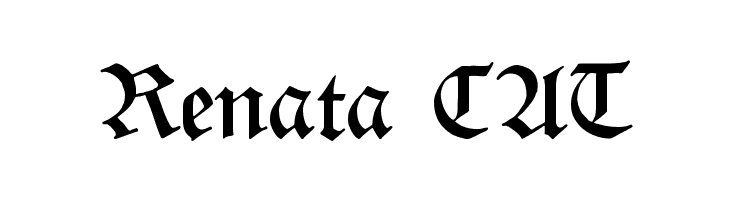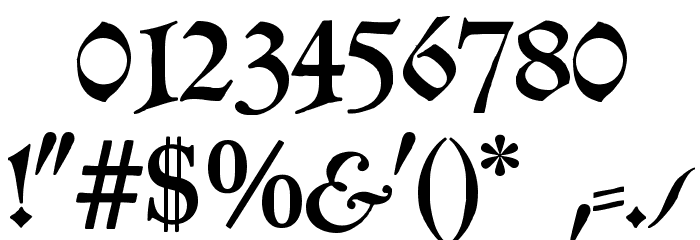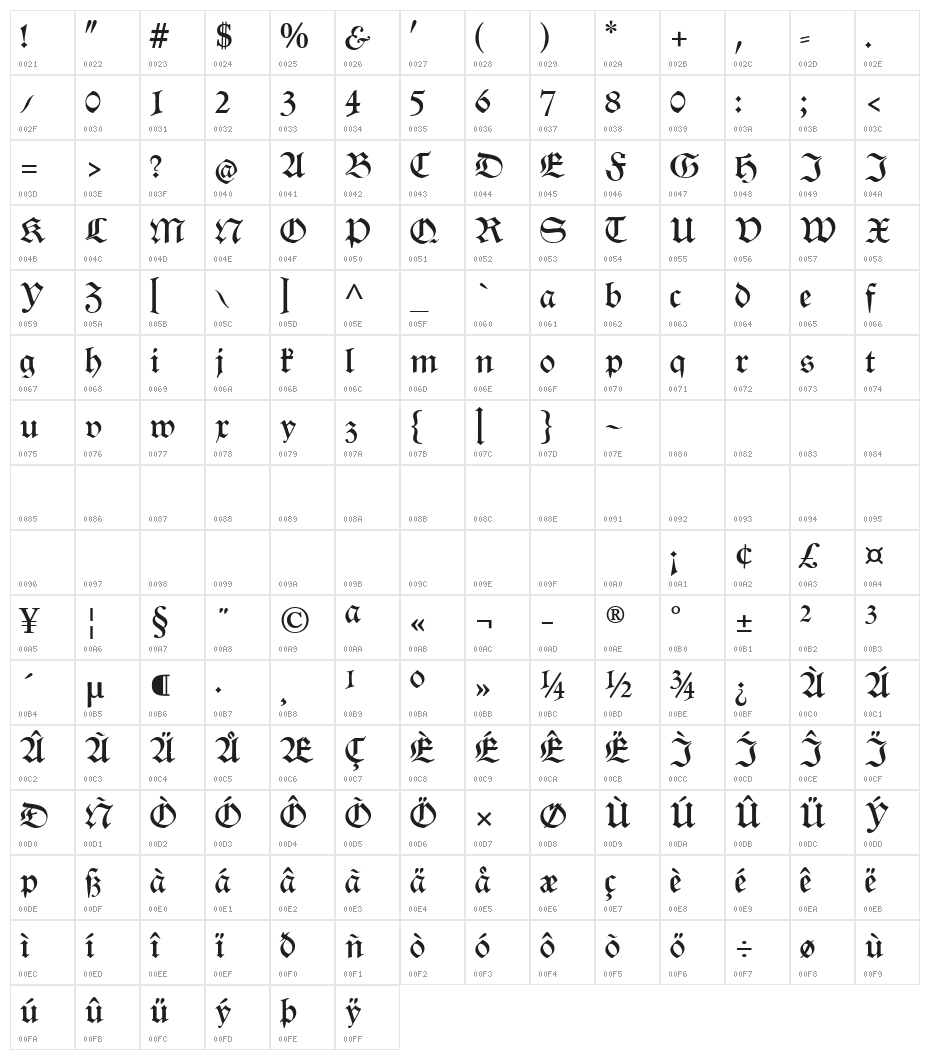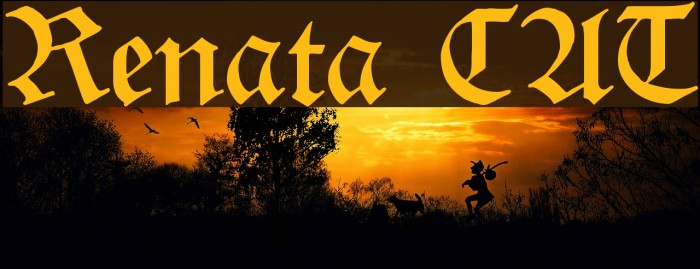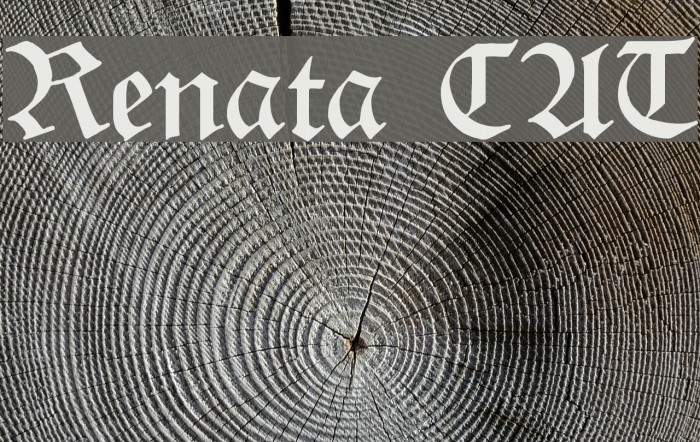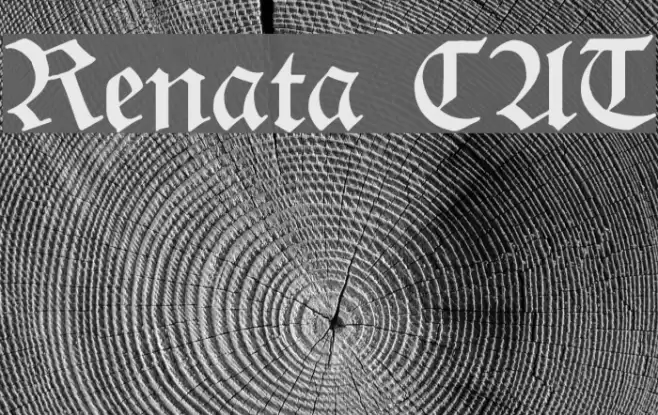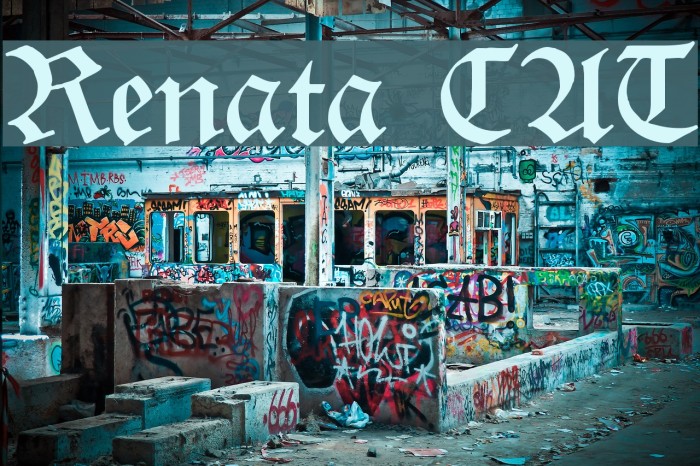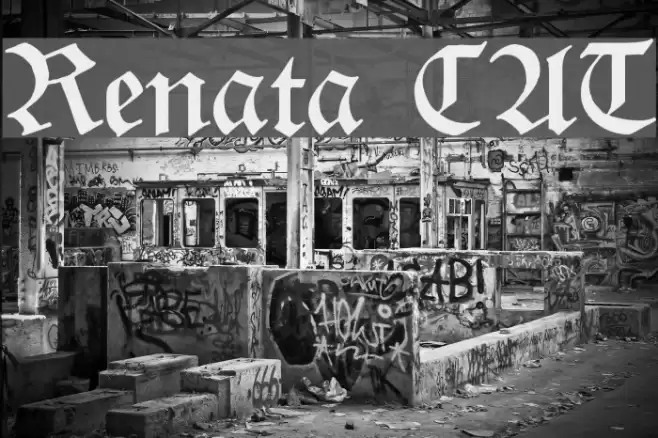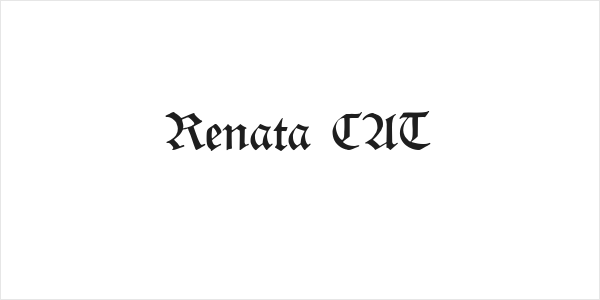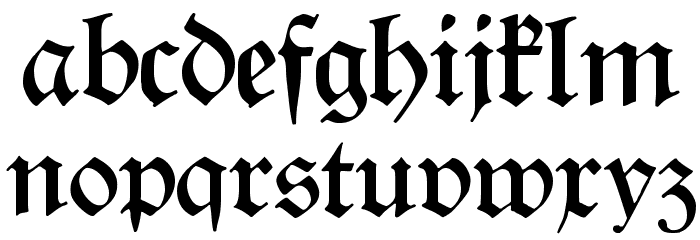
Renata CAT Font
Renata CAT Description
This font exhibits a classic blackletter style, characterized by its intricate and ornate design. The letters are sharply angular with dramatic flourishes, embodying a medieval aesthetic. The uppercase letters are particularly elaborate, with pointed serifs and bold strokes that create a striking visual impact. The lowercase letters maintain a consistent style, with a slightly more subdued appearance, yet still retain the decorative elements typical of blackletter fonts. The numerals are distinct and maintain the same stylistic features, ensuring uniformity across the character set. Special characters are equally ornate, complementing the overall design. This font is best suited for projects that require a historical or gothic touch, such as themed event invitations, book covers, or branding for products that wish to evoke a sense of tradition and elegance.